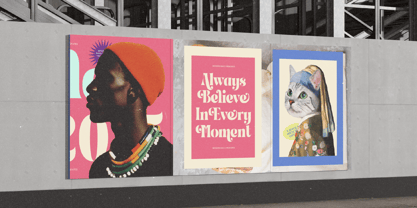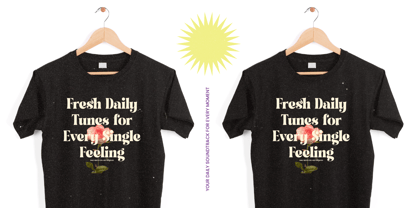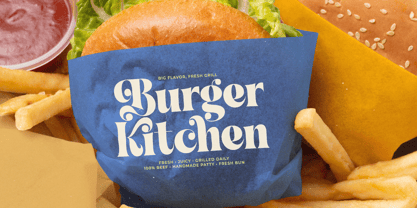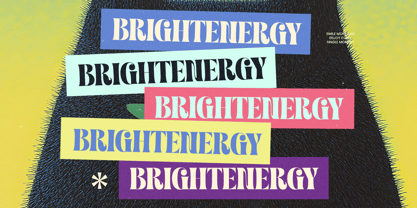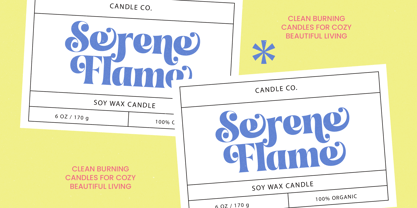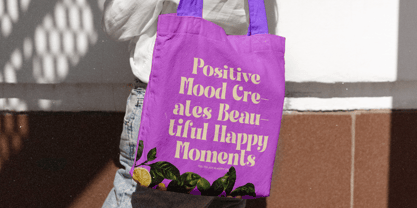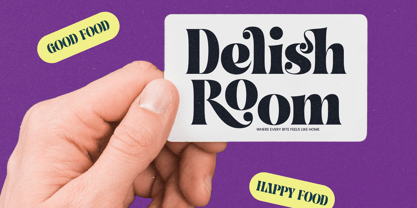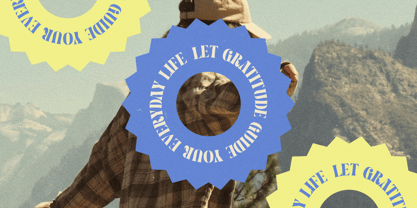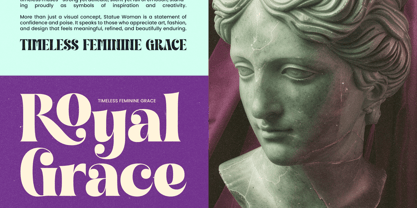
Fresh Kinetic
The Fresh Kinetic Font Family was designed by Heru Utama Putra and published by Timelesstype Studio. Fresh Kinetic contains 2 styles and family package options. More about this family
Fresh Kinetic - Modern Display Font , from Timelesstype , Suitable for any projects such as: logos, branding projects, homeware designs, product packaging, mugs, quotes, posters, shopping bags, t-shirts, book covers, name card, invitation cards, greeting cards, label, photography, watermark, special events, and all your other luxury and beautiful projects that need a Luxury Serif taste.